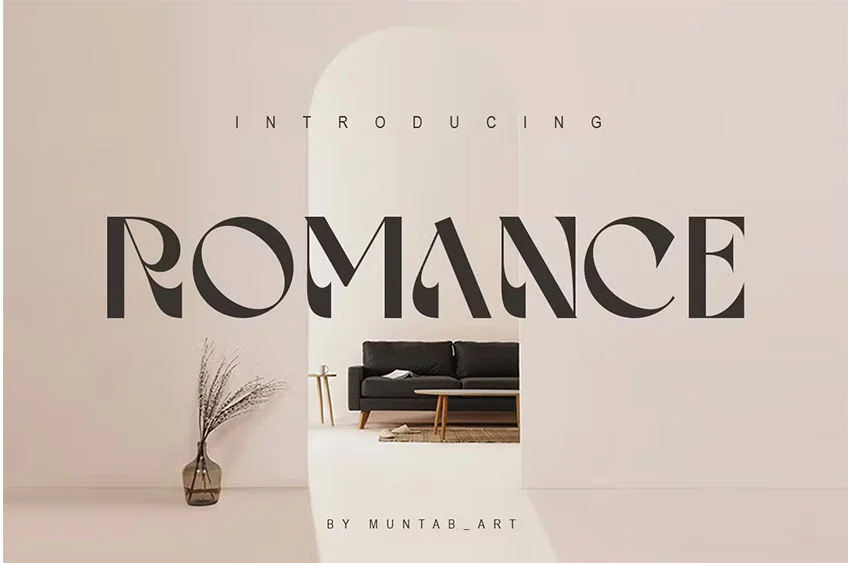
Romance Font
Romance Font includes uppercase letters, numerals, a large range of punctuation. Serif font with modern display style. Created for poster, web design, branding, illustrations, badges and some other works.